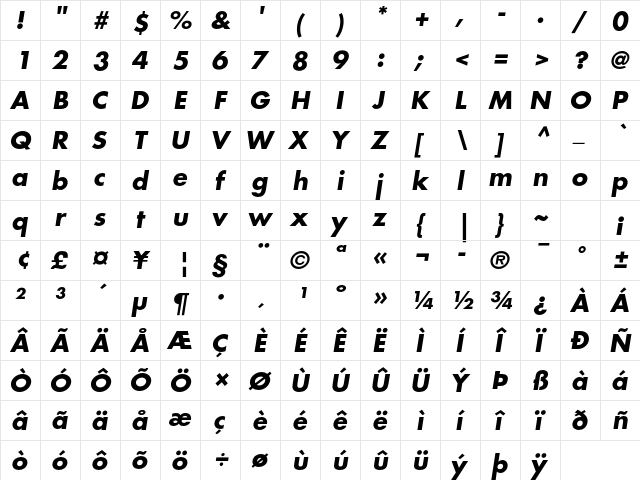
Futura Std Bold Oblique Font Preview
| Designer | Paul Renner |
Design Context for Futura Std Typeface
Futura Std channels digital-age aesthetics through its sharp, structured letterforms — ideal for brands that want to signal innovation. The dynamic lean of this cut emphasises speed and emphasis in any layout. The heavy weight commands attention and anchors typographic hierarchies.